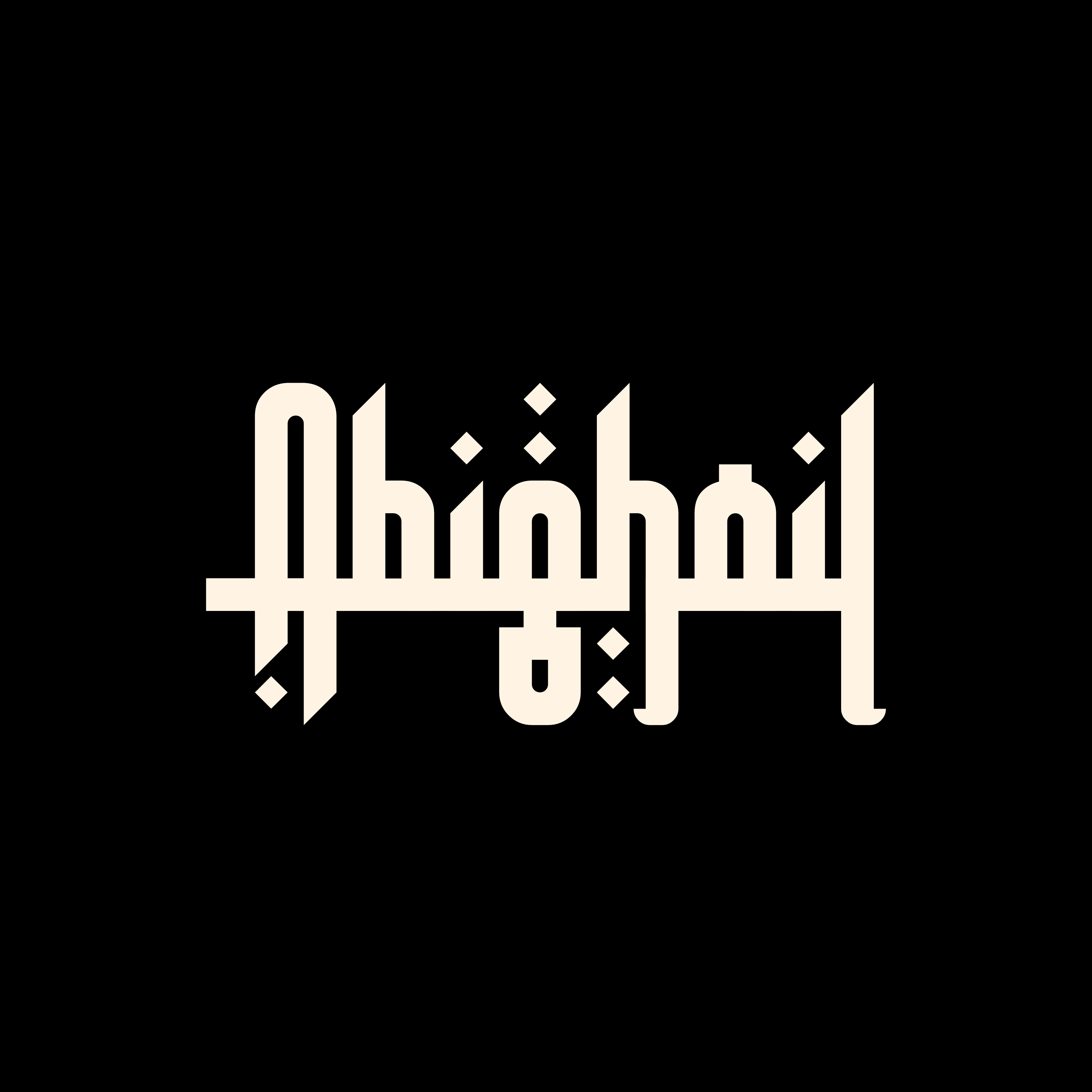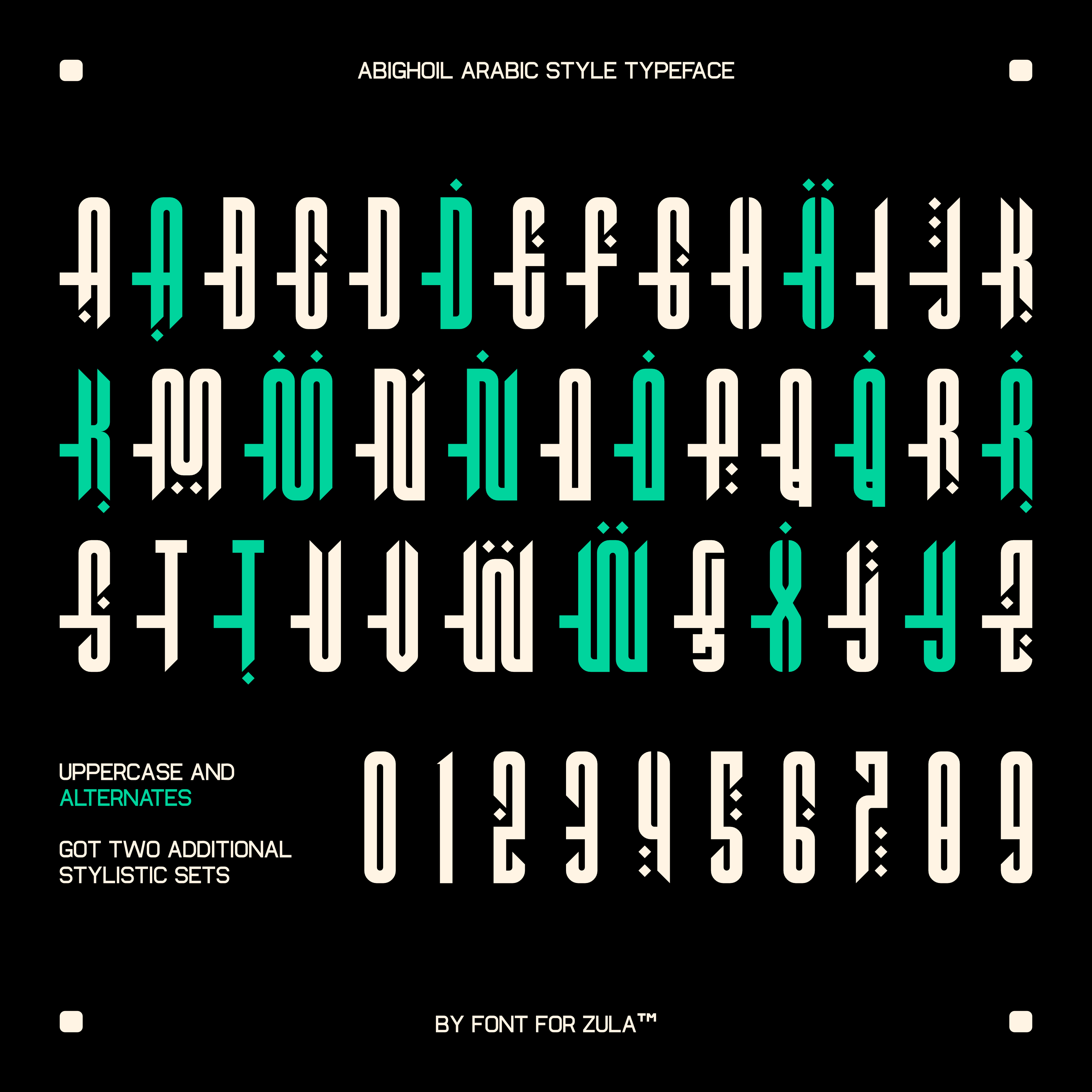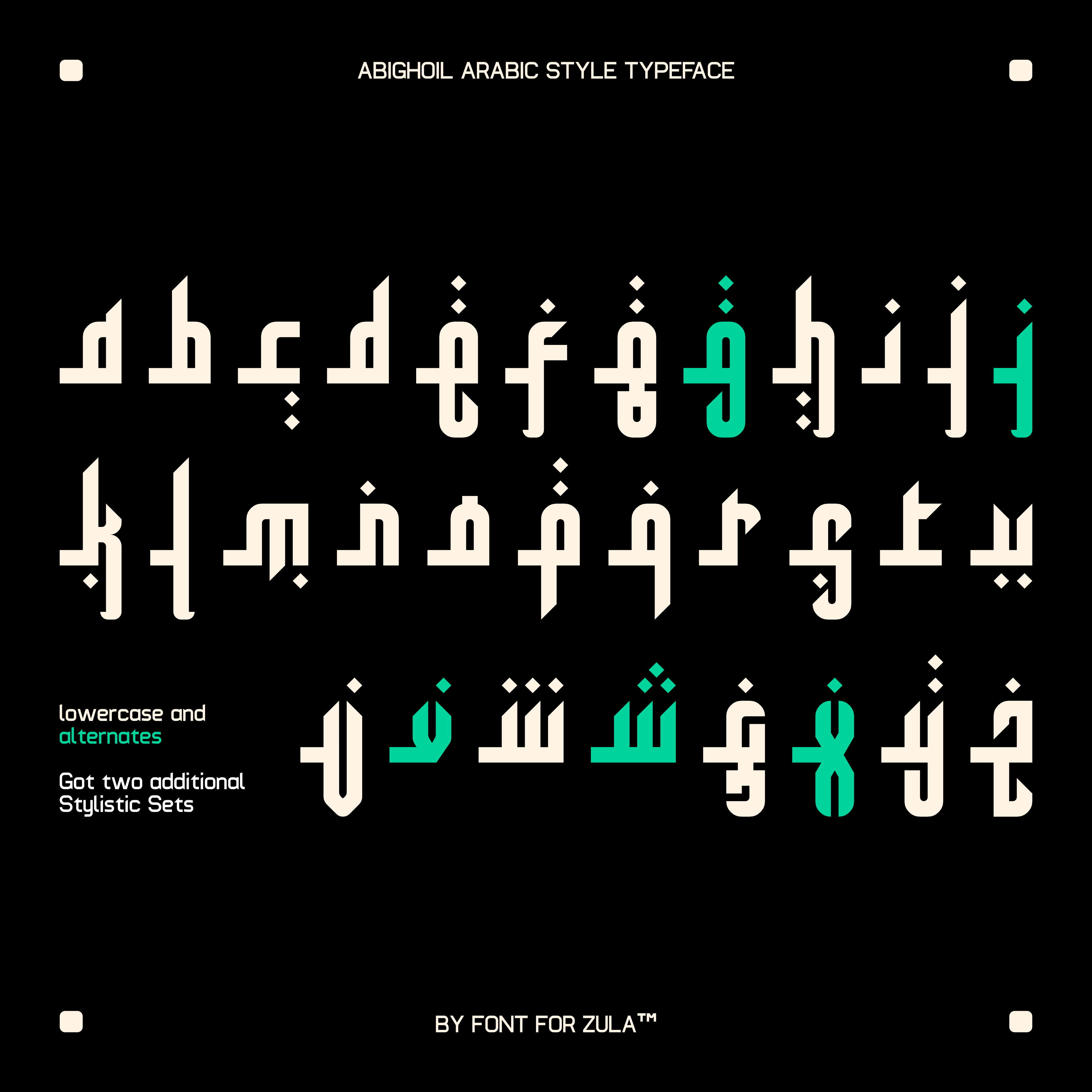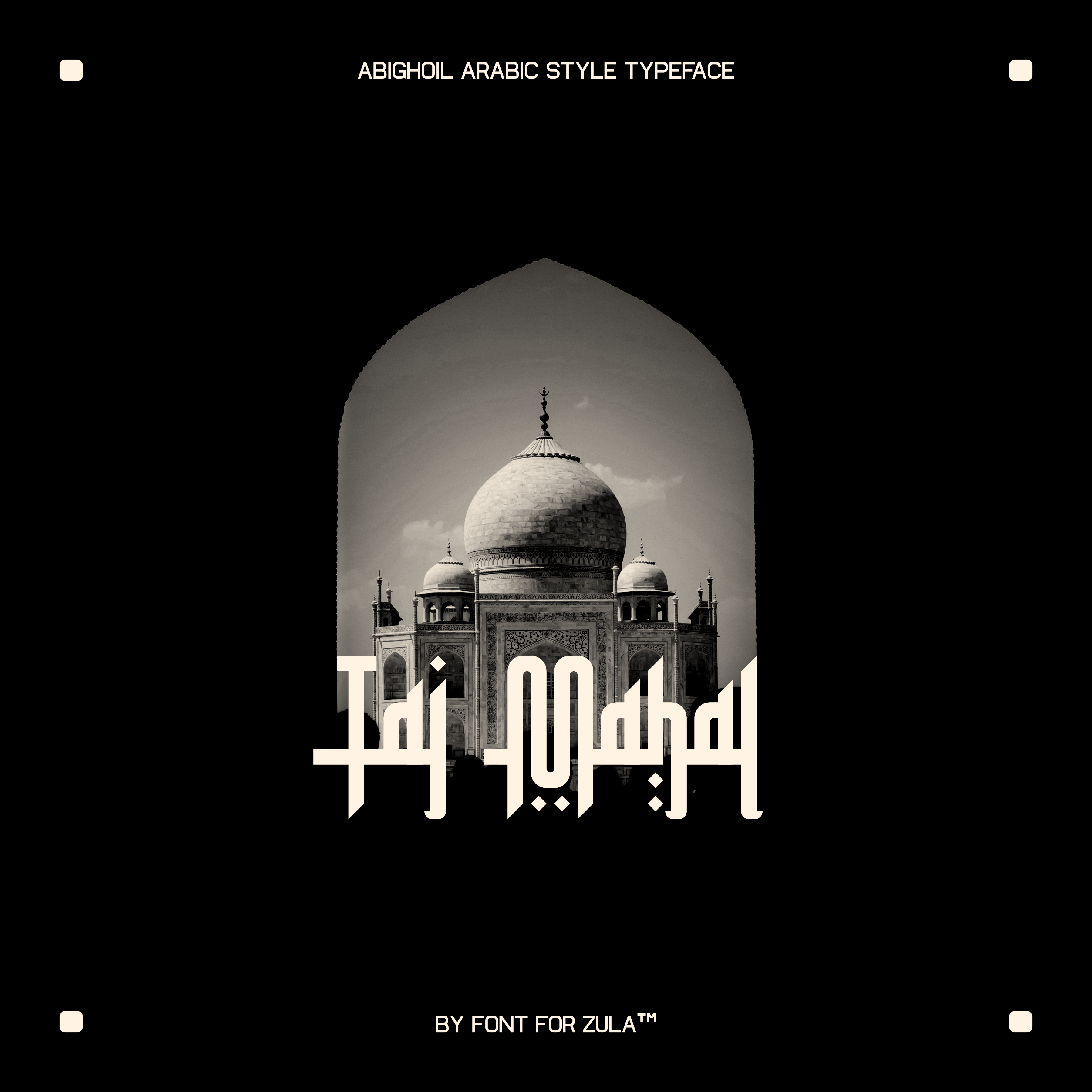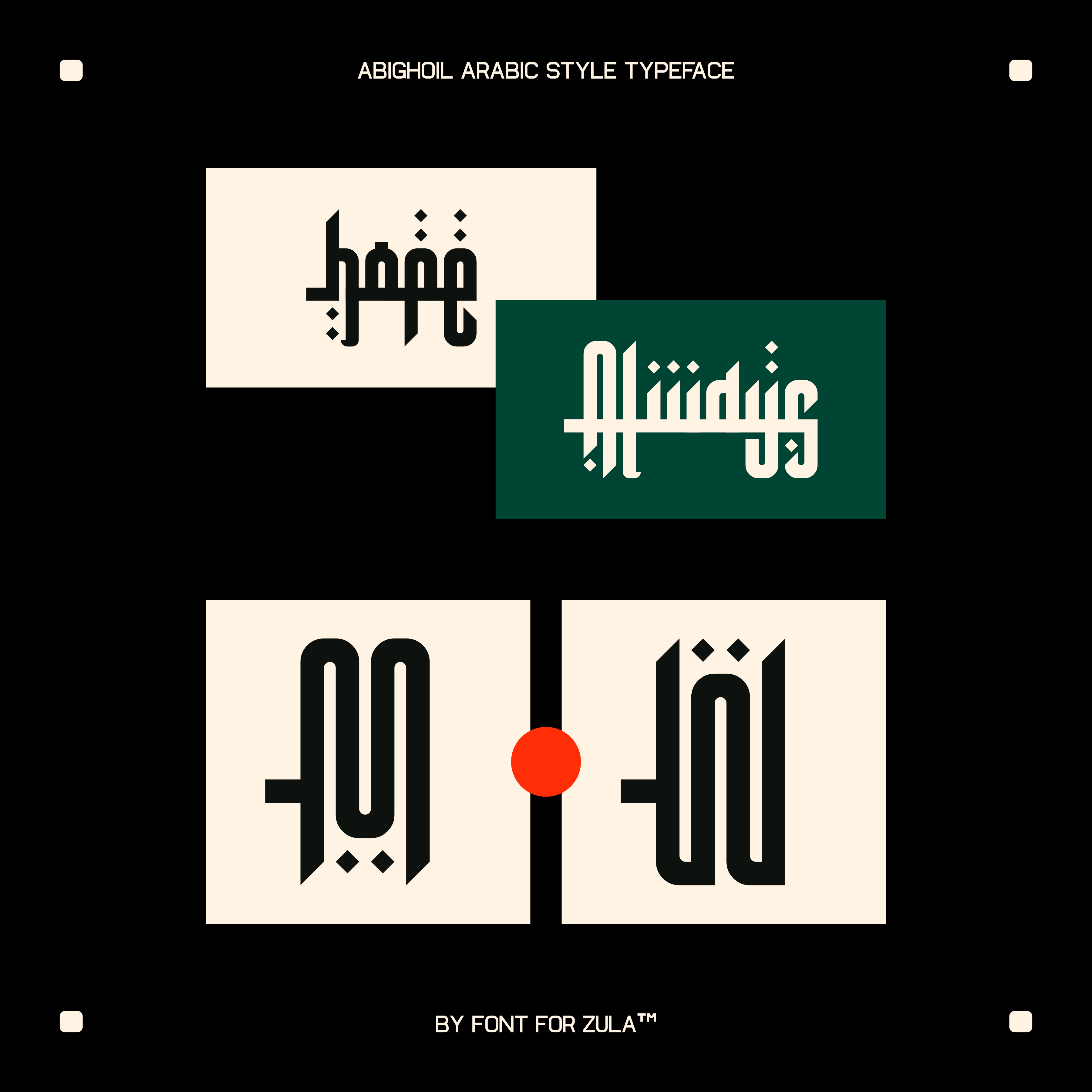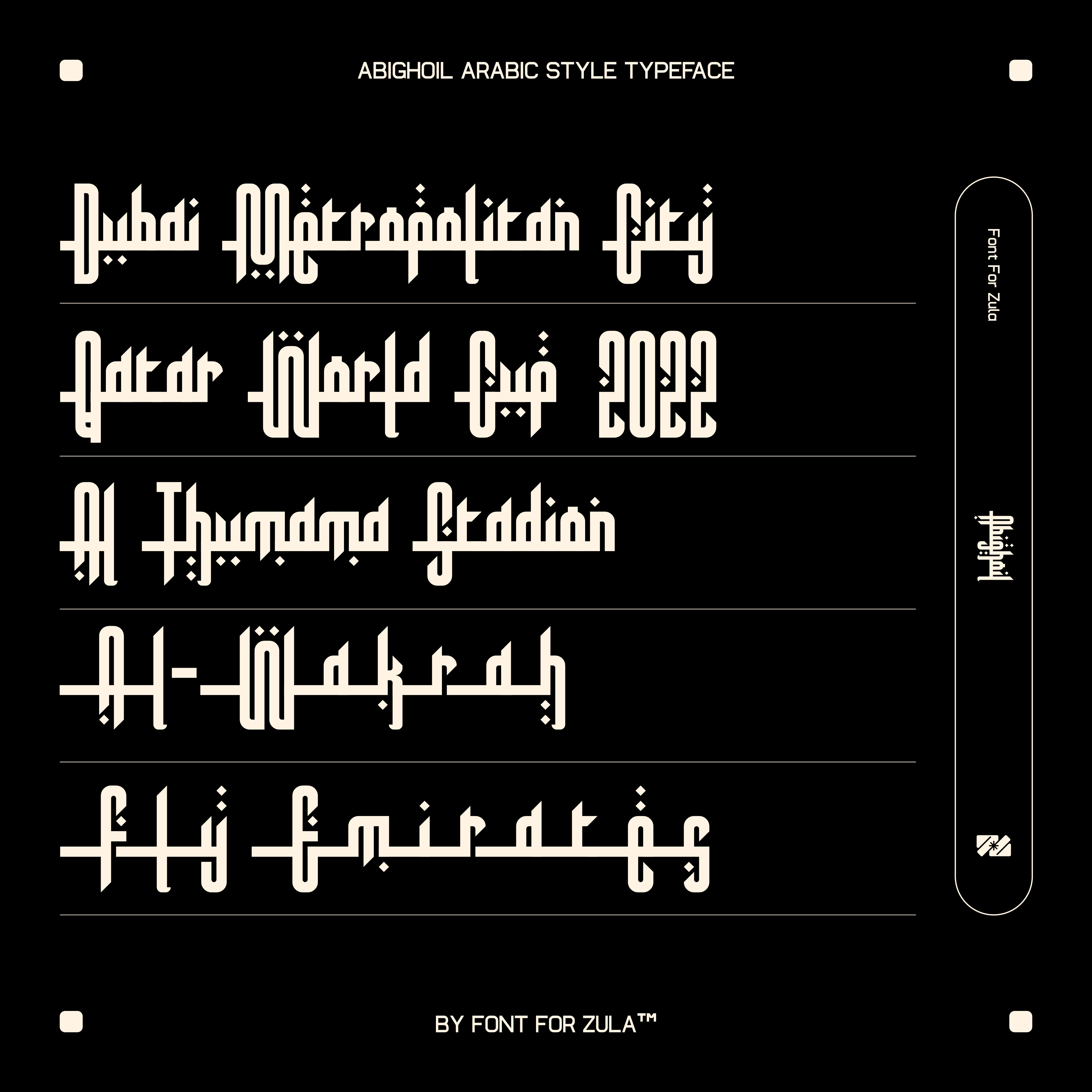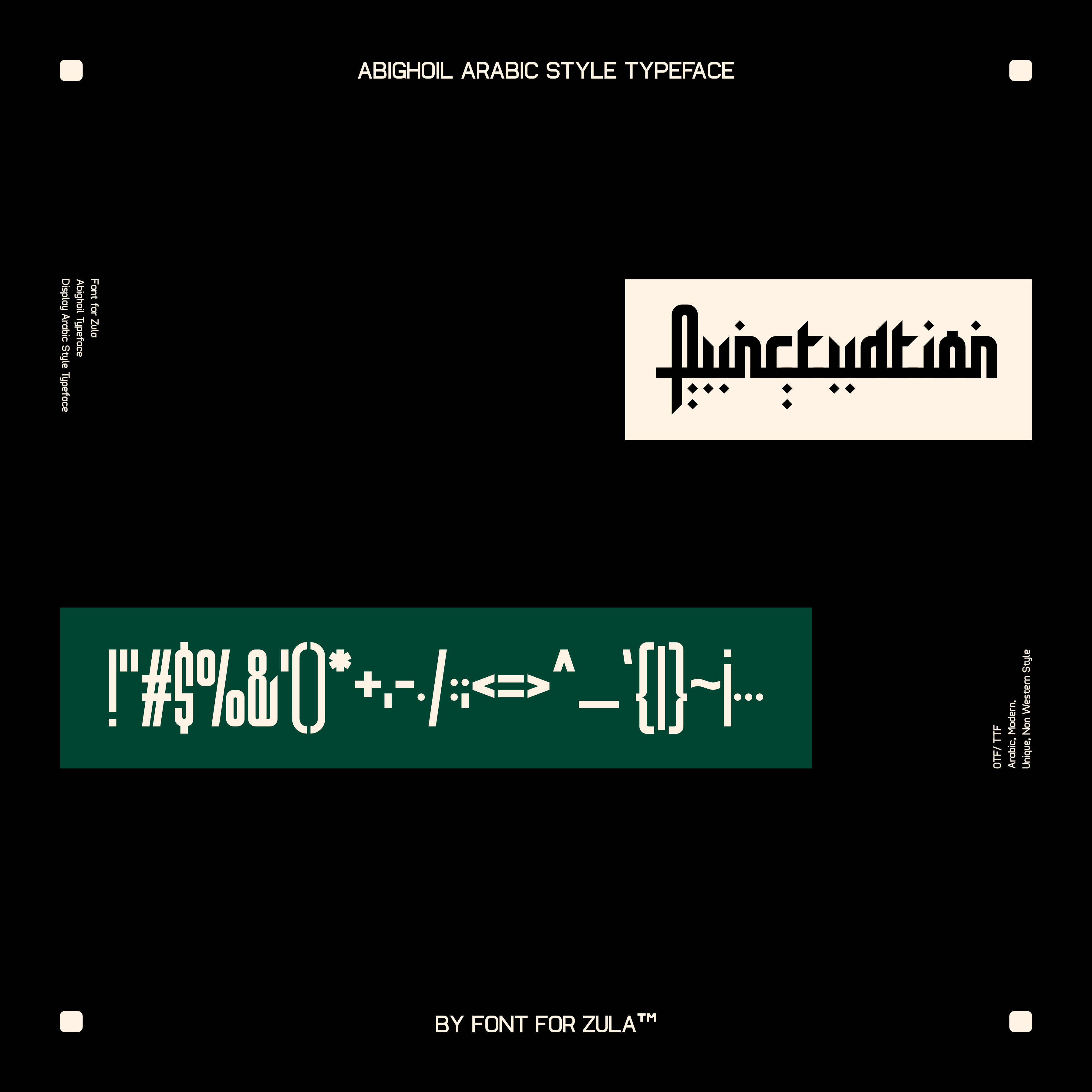
Abighoil Typeface
Abighoil Typeface is inspired by the shape of Arabic letters packaged in a modern and
unique shape.
Abighoil Typeface includes:
– Weights (Regular)
– Glyphs (218)
– Uppercase (26) Alternates (13)
– Upper SS01 (26) SS02 (13)
– Lowercase (26) Alternates (5)
– Lower ss01 (26) ss02 (5)
– Numbers (10)
– Punctuation (24)
– Others